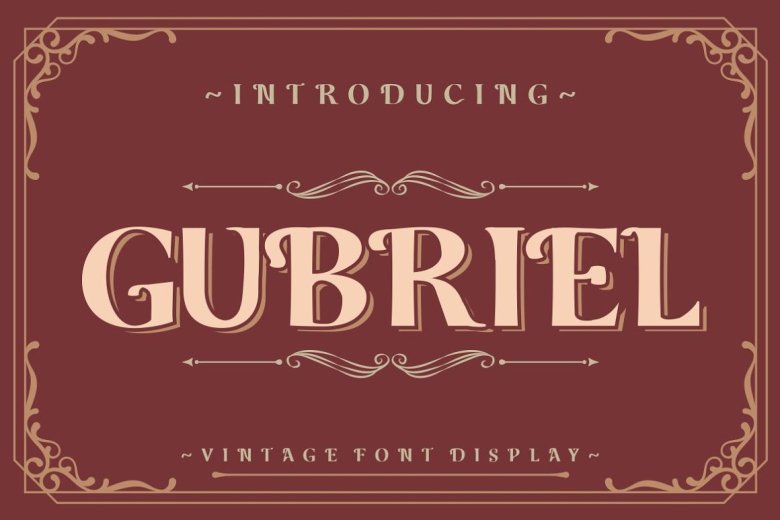
Gubriel Font
Introducing Gubriel is an elegant simple and modern vintage display serif font. That was elegant and beautiful. That’s the place where you would feel a beautiful and modern atmosphere with exactly this font. Can Be Useful For a T-shirts, Posters, Book Cover etc.
Gubriel Serif Font